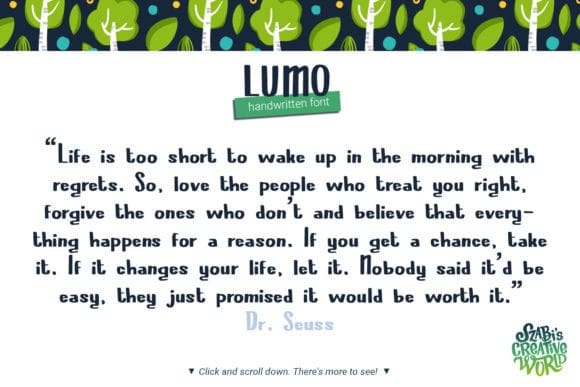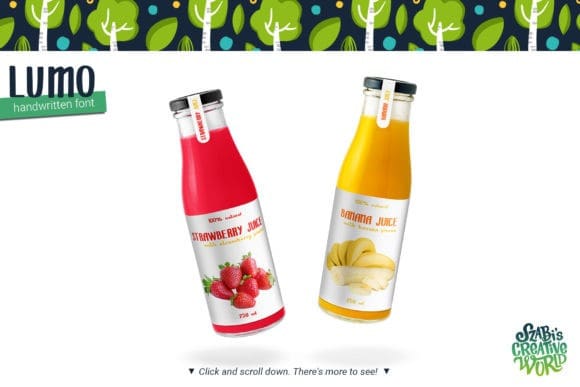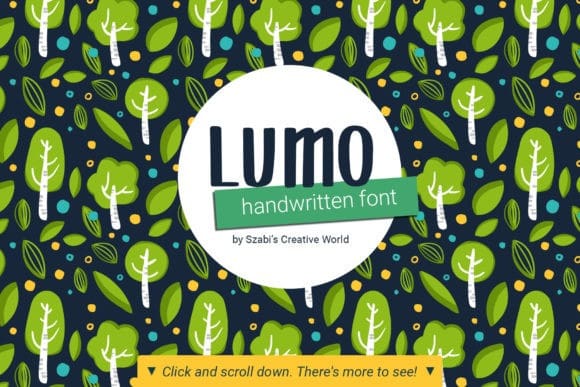
Lumo Font
Lumo Font is a sweet and friendly handwritten font. Its natural and unique style makes it incredibly fitting to a large pool of designs. The only limit is your imagination!